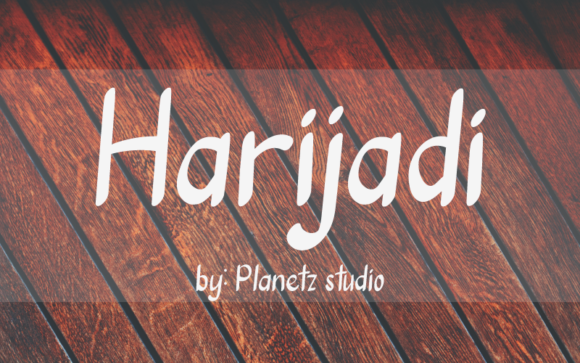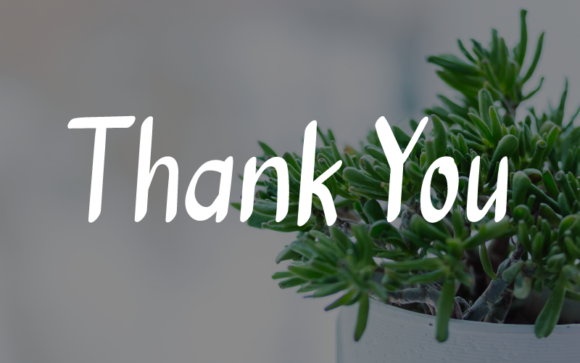
Harijadi Font
About Harijadi Font
Harijadi is an authentic handwritten font, created with the help of a brush pen. Its relaxed style makes it fitting to a wide range of designs.This font is the perfect fit for all of your logos, branding, social media, and crafty DIY projects. Let your imagination be the limit!